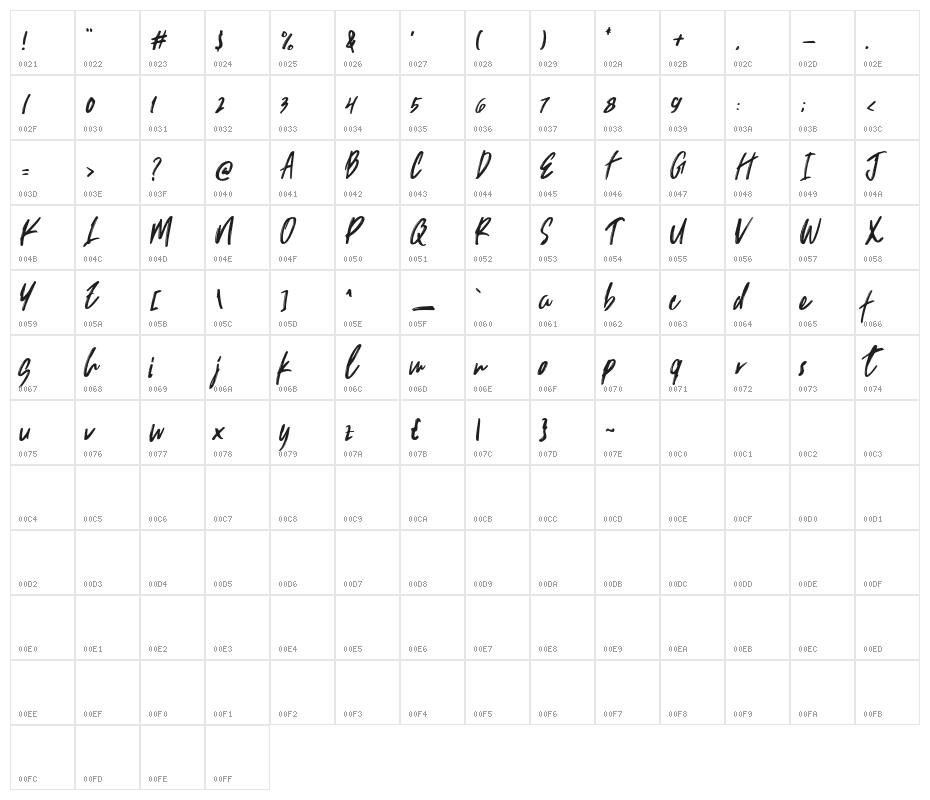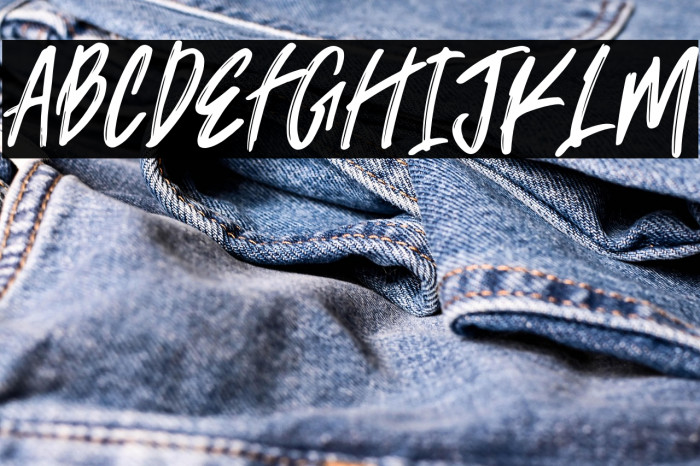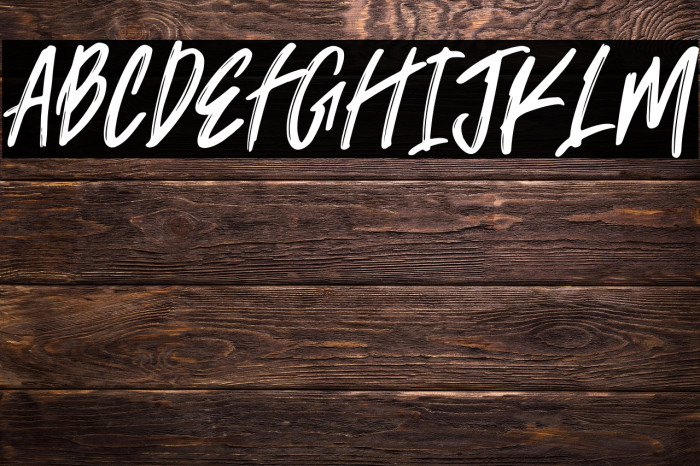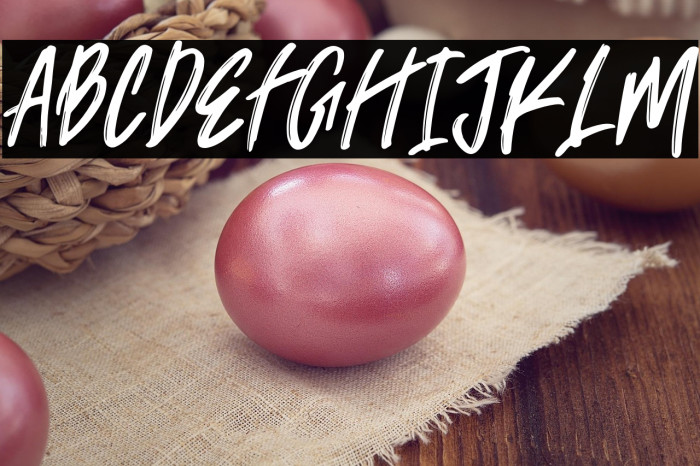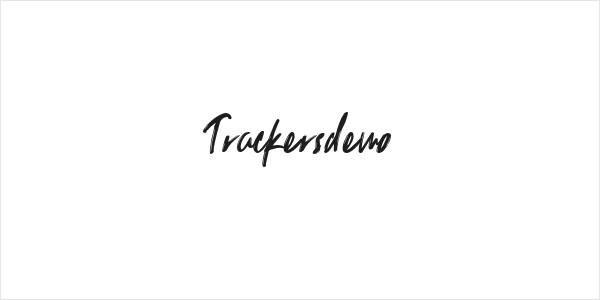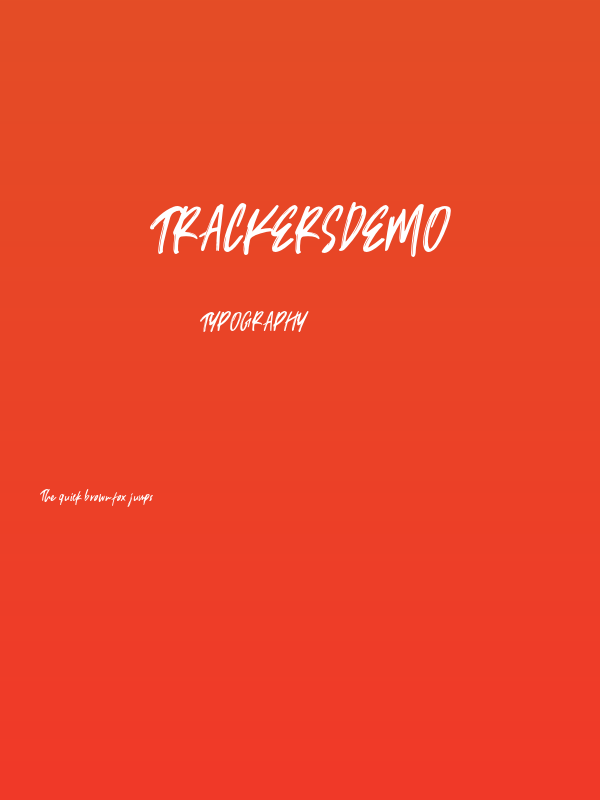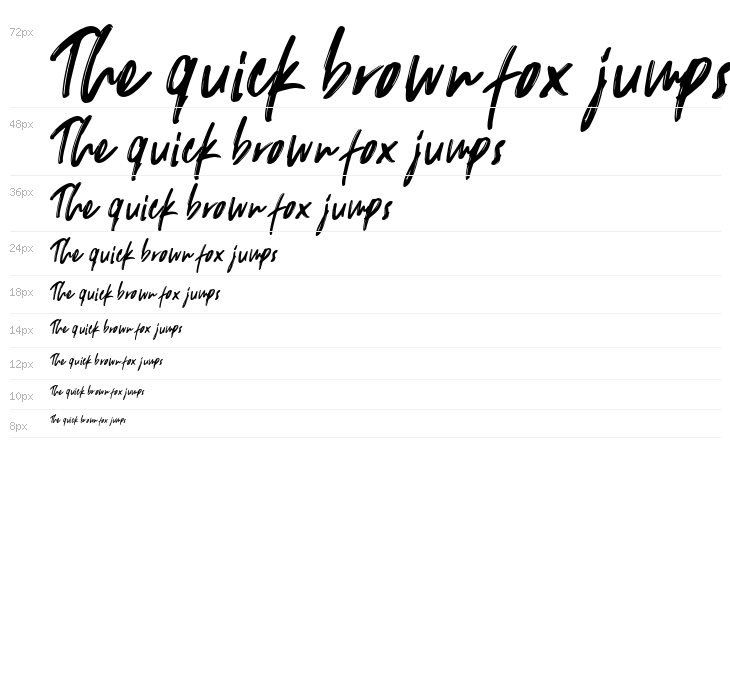
Trackersdemo Font
Trackersdemo Description
This font features a bold, expressive handwritten style with a dynamic and energetic appearance. The strokes are thick and varied, giving it a brush-like texture that adds a personal and artistic touch. The uppercase letters are tall and slightly slanted, while the lowercase letters maintain a consistent flow, enhancing readability. Numbers and special characters follow the same stylistic approach, ensuring uniformity across all elements. The overall design is modern and eye-catching, making it suitable for creative and impactful designs.
Proposed ProjectsIdeal for branding, posters, social media graphics, and any project requiring a personal, artistic touch.